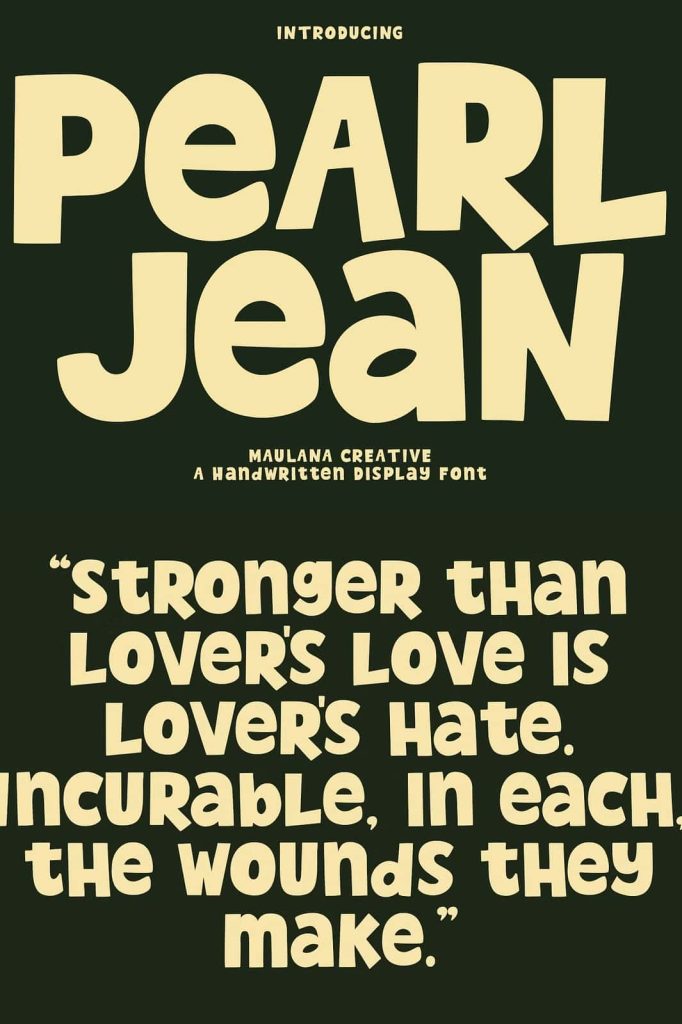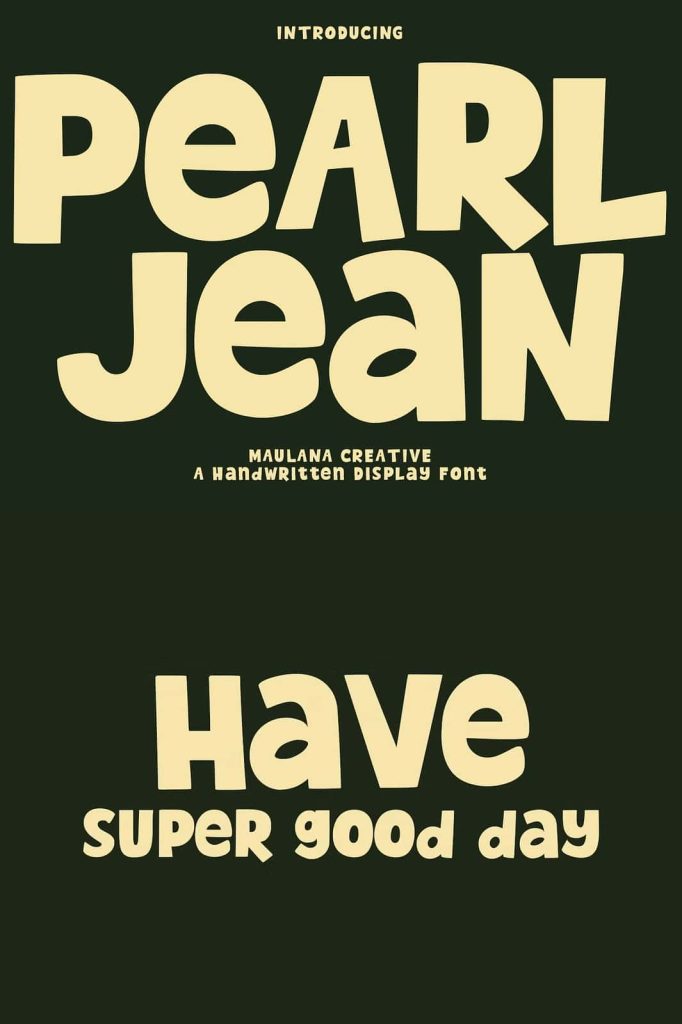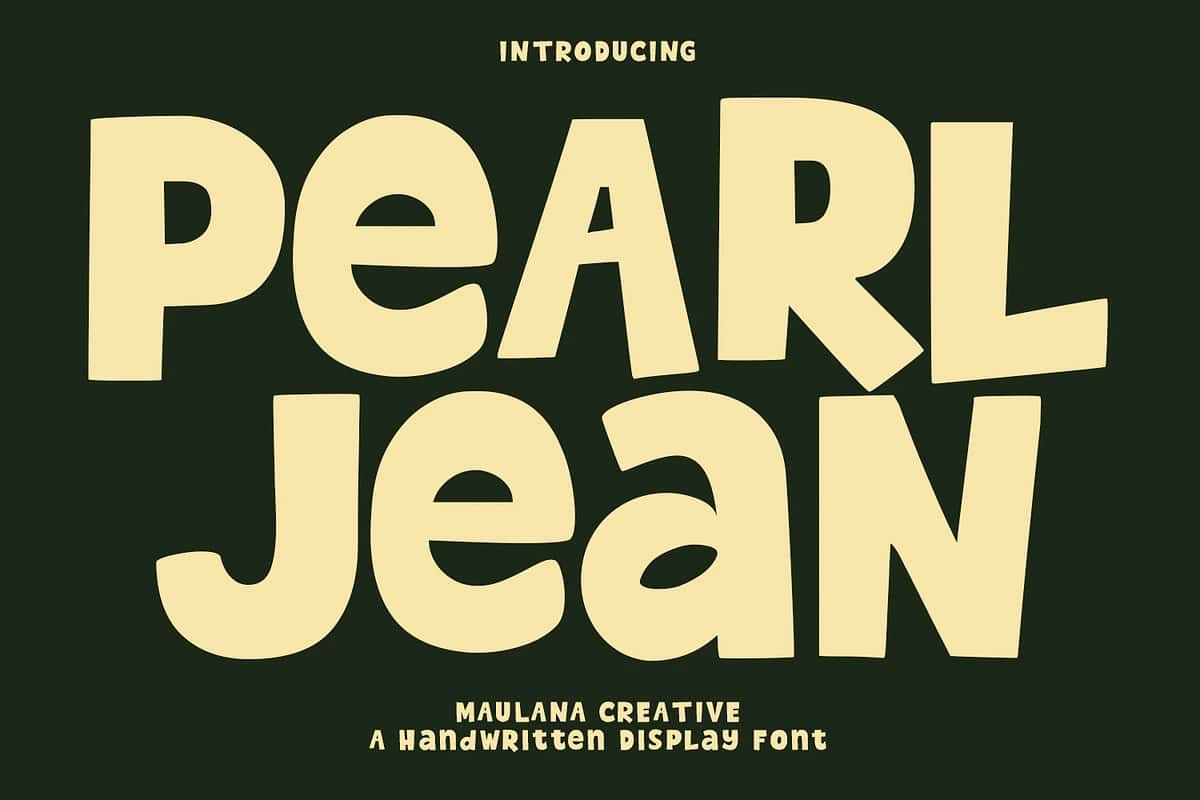
Pearl Jean Handwritten Display Font
Pearl Jean is a casual handwritten display font designed to bring warmth, personality, and authenticity into every visual creation. This charming and expressive typeface features medium low contrast strokes, creating a natural handwritten feel that suits a wide variety of creative design projects. Pearl Jean delivers a fun and approachable aesthetic that instantly enhances visual storytelling, making it a perfect option for modern designers seeking a playful yet professional handwritten style.
A Playful Handwritten Typeface with Authentic Character
Pearl Jean introduces an engaging handwritten style that reflects spontaneity and artistic expression. The smooth curves and relaxed shapes give every letter a friendly and inviting appearance. With a medium low contrast stroke, this font achieves an effortless balance between readability and creative freedom. It captures the essence of natural handwriting without sacrificing visual consistency, making it a remarkable choice for headings, quotes, logotype designs, and personal branding.
The addition of carefully crafted ligatures and alternates elevates Pearl Jean beyond a basic handwritten style. These thoughtfully designed features allow designers to create richer, more organic text compositions, adding movement and variation to every word. Whether you are crafting a short signature-style logo or a full-page layout, Pearl Jean helps maintain a visual flow that feels fresh and beautifully handwritten.
Perfect for Branding and Custom Logo Design
Pearl Jean is the ideal typeface for branding elements that require a unique handwritten identity. From boutique businesses and creative studios to personal brands and lifestyle products, this font enhances recognition with its distinctive charm. Designers can use Pearl Jean to build stylish logos, product labels, business cards, packaging designs, and promotional materials that need an approachable and unique handwritten touch. Its versatility ensures great performance across print formats, product surfaces, and digital screens.
Bring Creativity to Social Media and Marketing
In the world of social media, engaging typography is key to attracting attention and expressing brand personality. Pearl Jean excels in digital design, making social media posts, Instagram highlights, Pinterest pins, and story content more compelling. The fun character and natural readability create stunning text overlays for images, quotes, lifestyle content, and announcement graphics. Pearl Jean seamlessly blends design style with effective communication, ensuring that every message stands out.
Perfect Choice for Invitations, Stationery, and Print Projects
Pearl Jean also thrives in print-based creative projects such as wedding invitations, greeting cards, sticker designs, gift tags, labels, and personal stationery. The soft handwritten strokes provide a warm handcrafted feeling that enhances emotional visual elements. Designers seeking a balance between casual elegance and expressive artistry will appreciate how well Pearl Jean complements romantic, feminine, vintage, or modern layouts.
Key Features of Pearl Jean Handwritten Display Font
- Casual handwritten display style with natural charm
- Medium low contrast stroke for smooth readability and flow
- Fun character suitable for various creative applications
- Includes unique ligatures and alternates for more design variety
- Ideal for logos, branding, invitations, packaging, and digital content
- Works beautifully in both print and digital formats
Enhance Your Design Projects with Pearl Jean
Pearl Jean is more than just a handwritten display font. It is a creative tool that adds personality, warmth, and artistic expression wherever it is used. Its versatile features and friendly style allow it to adapt to countless design goals, from branding perfection to personal artistic projects. If you want typography that feels alive, engaging, and uniquely expressive, Pearl Jean is the perfect solution.